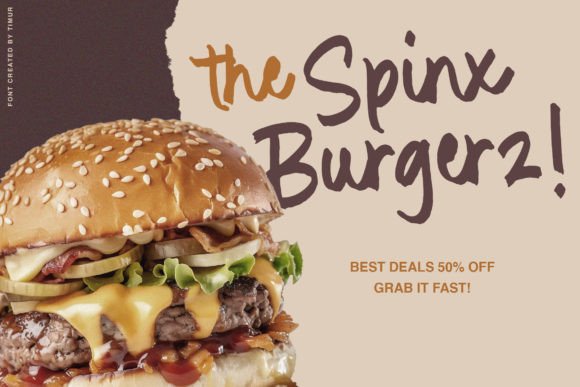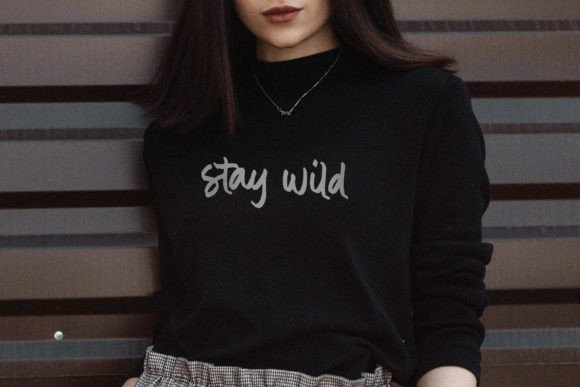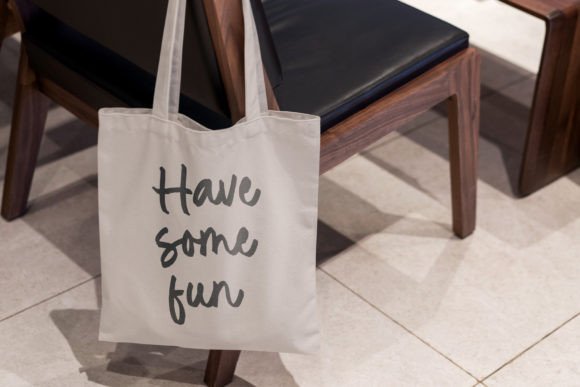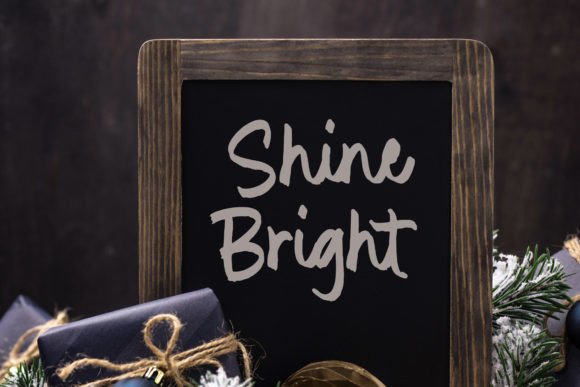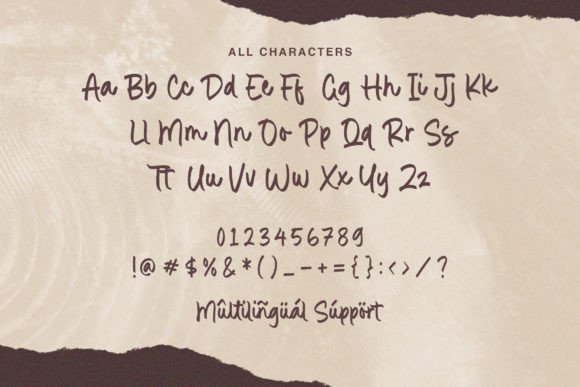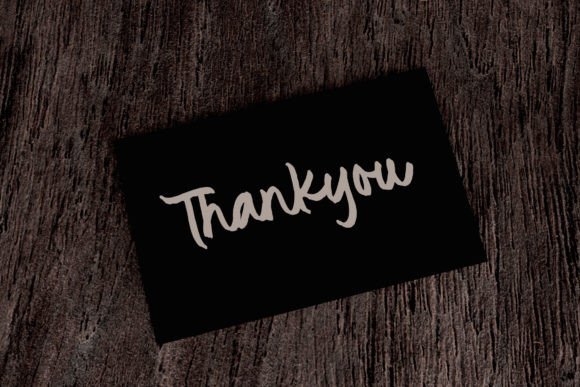
Introduction to Rolling Bakery Font
As a designer, you’ve probably had that moment when you stumble upon a unique design resource that changes the game for your creative project. For me, that moment came when I discovered the Rolling Bakery Font – a rough and timeless handwritten font that adds a touch of personality to any design. With its one-of-a-kind letters, it’s the perfect choice for creating eye-catching logos, branding, and quotes that leave a lasting impression.
What sets the Rolling Bakery Font apart is its high-quality design and transparent background, making it a versatile tool for designers. Whether you’re working on a free download or a commercial project, this font is sure to elevate your design and make it stand out from the crowd.
Key Features of Rolling Bakery Font
- High-quality design resource with a unique, playful style, perfect for creative projects.
- Includes a range of characters, including uppercase and lowercase letters, numbers, and special symbols.
- Perfect for use in various creative projects, including bakery branding, food labels, and more.
Honest Review: Rolling Bakery Font
As a designer, I’m always on the lookout for unique and high-quality fonts to enhance my creative projects. The Rolling Bakery Font caught my eye, and I decided to give it a try.
What works well: ✨ The Rolling Bakery Font has a beautiful, whimsical feel that’s perfect for bakery-themed designs or any project that needs a touch of warmth and elegance. The font is highly customizable, allowing you to adjust the size, color, and spacing to suit your design needs.
What’s not so great: ⚠️ The Rolling Bakery Font is a decorative font and may not be suitable for large blocks of text. Additionally, the font can be a bit challenging to read in small sizes.
Getting the Most Out of the Rolling Bakery Font
To get the most out of the Rolling Bakery Font, use it on a transparent background to give your design a clean and modern look. You can also experiment with different font sizes and colors to add visual interest to your design.
The Rolling Bakery Font is perfect for creative projects, such as logo design, branding, and typography-based art. Its high quality and unique design make it an excellent choice for designers looking to add a touch of elegance to their work.